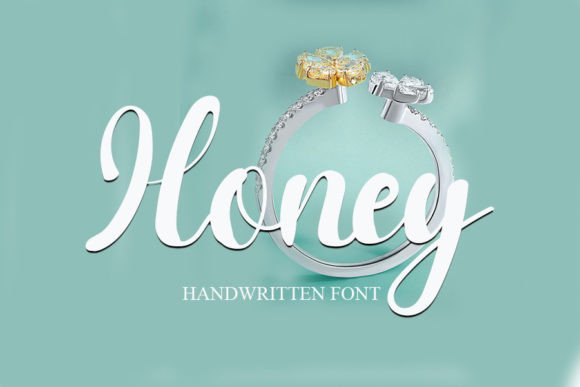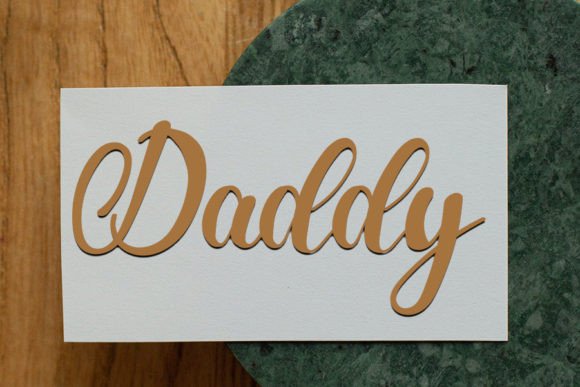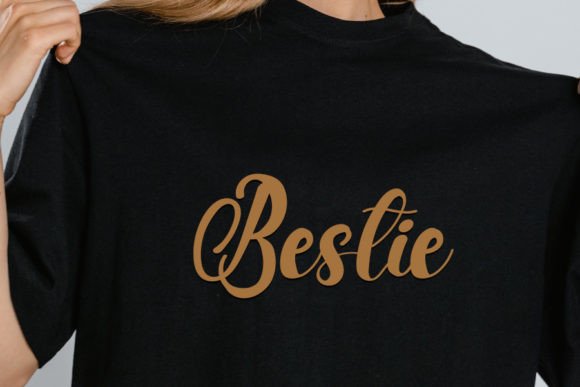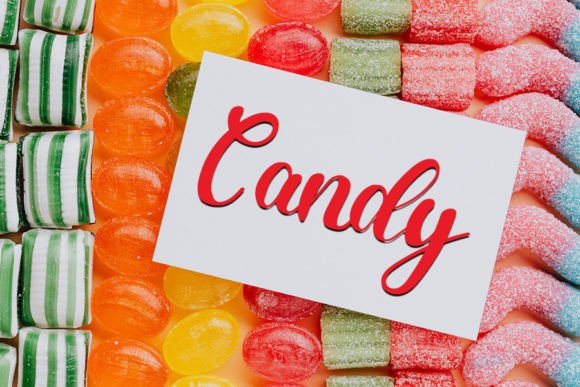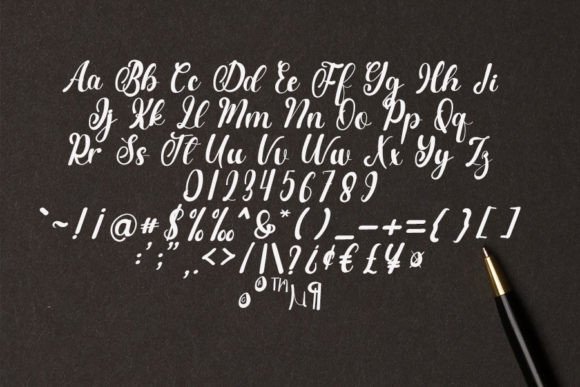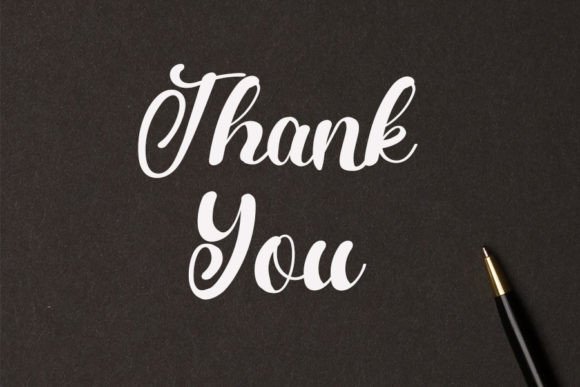
Honey Font
About Honey Handwritten Font
Honey Handwritten Font is a stylish and modern script typeface created with inspiration from classic calligraphy. With balanced proportions, smooth curves, and spotless forms, it brings elegance and creativity together in one design. Because of its timeless yet modern appeal, Honey Handwritten Font is the perfect choice for branding, invitations, packaging, posters, and digital projects.
A Modern Typeface with Classic Inspiration
Handwritten fonts provide charm and personality, and Honey HandwrittenFont captures this beautifully. Its strokes are neither too thin nor too thick, achieving a harmonious balance that suits a wide variety of projects. In addition, its flowing style reflects classic artistry while still fitting seamlessly into modern designs.
Perfect Typeface for Invitations and Wedding Stationery
Special events require fonts that feel personal, and Honey HandwrittenFont works wonderfully in this area. For example, it transforms wedding invitations, menus, and thank-you cards into elegant designs. Moreover, it adds a personal touch to seasonal greeting cards, birthday invitations, and festive stationery, ensuring every project feels unique and heartfelt.
A Script Typeface for Branding and Packaging
Designers and businesses can also benefit from Honey HandwrittenFont. It elevates boutique logos, product labels, and promotional campaigns with elegance. Furthermore, it adapts easily to magazine layouts, digital advertising, and social media graphics. When paired with clean sans serif typefaces, it creates a modern and professional brand identity.
Flexible Across Print and Digital Platforms
Another strength of Honey Handwritten Font is its adaptability across mediums. In print, it shines on brochures, posters, and merchandise. Digitally, it integrates smoothly into websites, blogs, and online shops. Since it maintains clarity in both small text and large banners, it ensures consistent quality across all design formats.